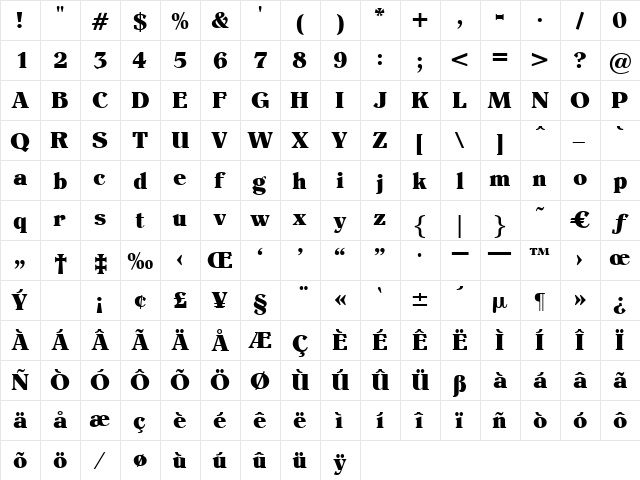
Hohenfels Regular
Design Context for Hohenfels Typeface
Hohenfels offers clean, dependable letterforms without strong stylistic allegiance, making it a practical choice for designers who need flexibility.
Pro Tip: Pair Hohenfels with a font of contrasting weight or personality to build a more expressive typographic hierarchy.